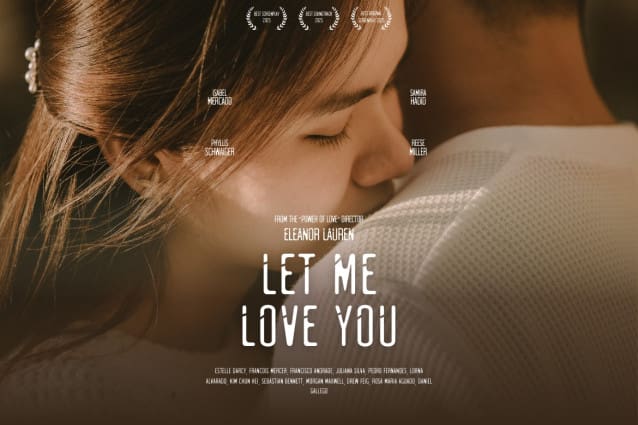
Echo Horizon Font
Echo Horizon Font is a sleek and modern set of 2 styles. Its clean lines and minimalist design make it suitable for various applications such as logos, titles, web design, and branding. Whether used in all caps for a more refined look or mixed with lowercase for timeless elegance, Echo Horizon font offers versatility.